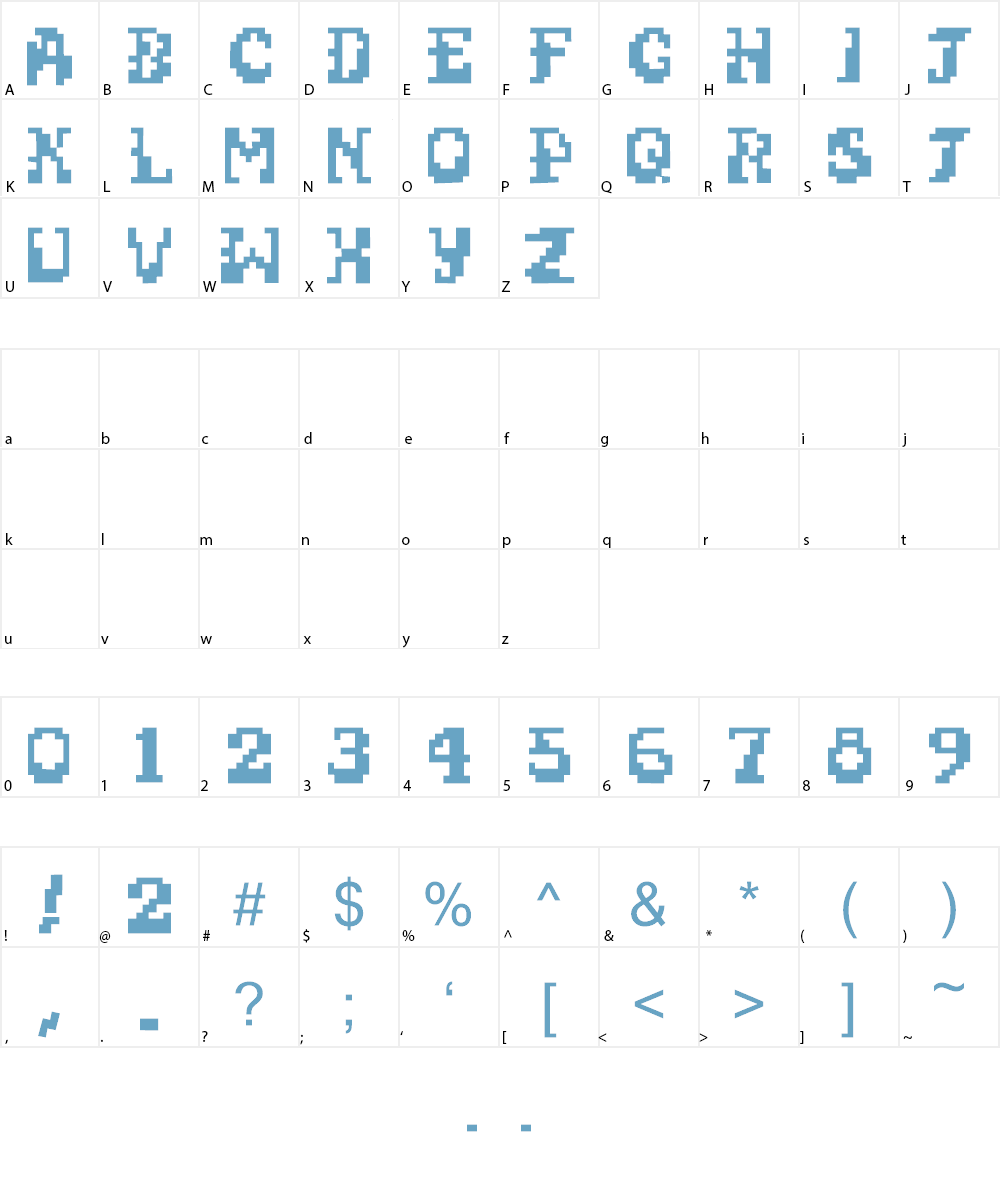
This font is designed after the in-game lettering used in the arcade game Sinistar.
It includes three punctuation characters: Exclamation point, comma, and "@". (I recommend the @.)
The font is all caps; lower-case letters produce only blank space.